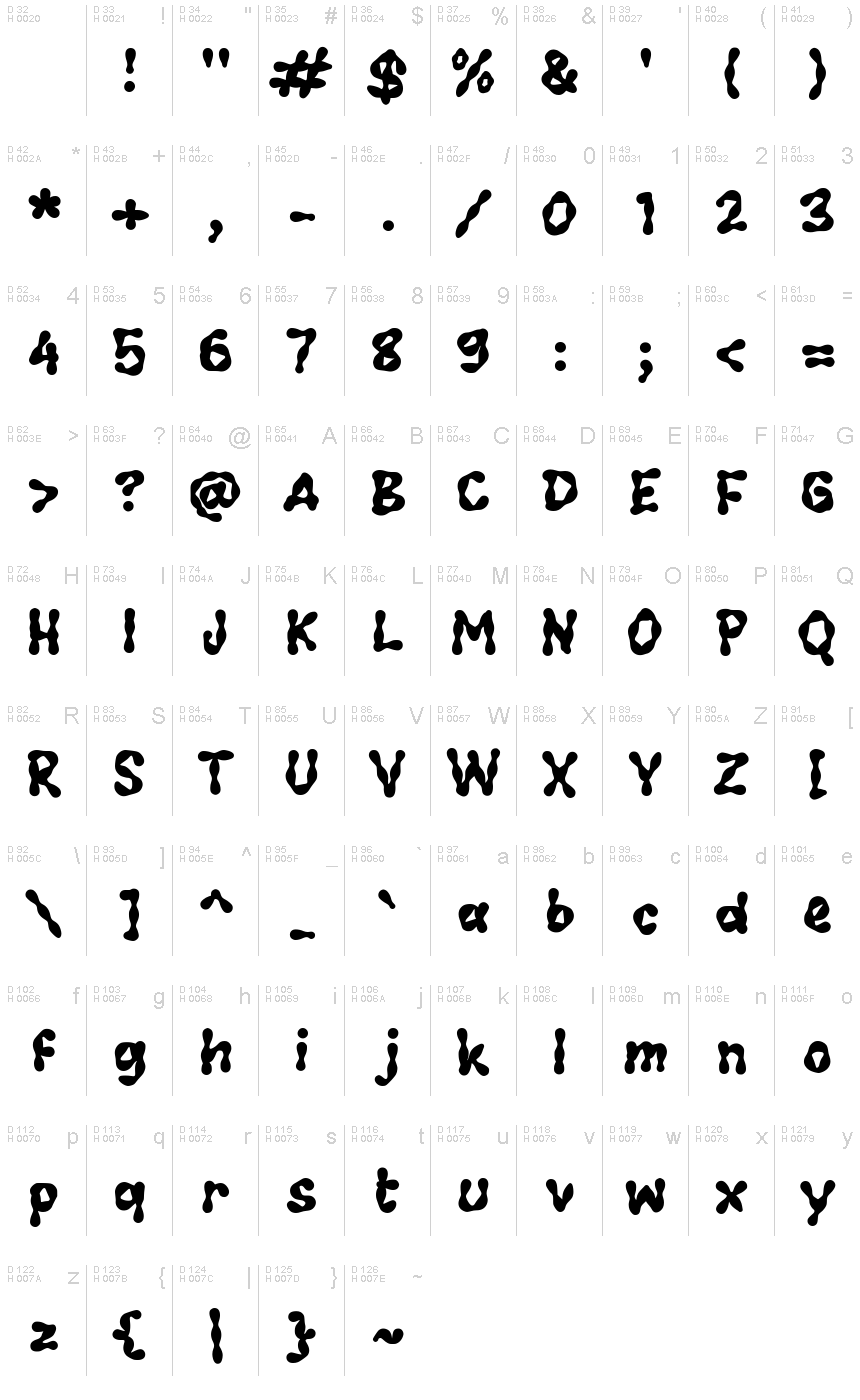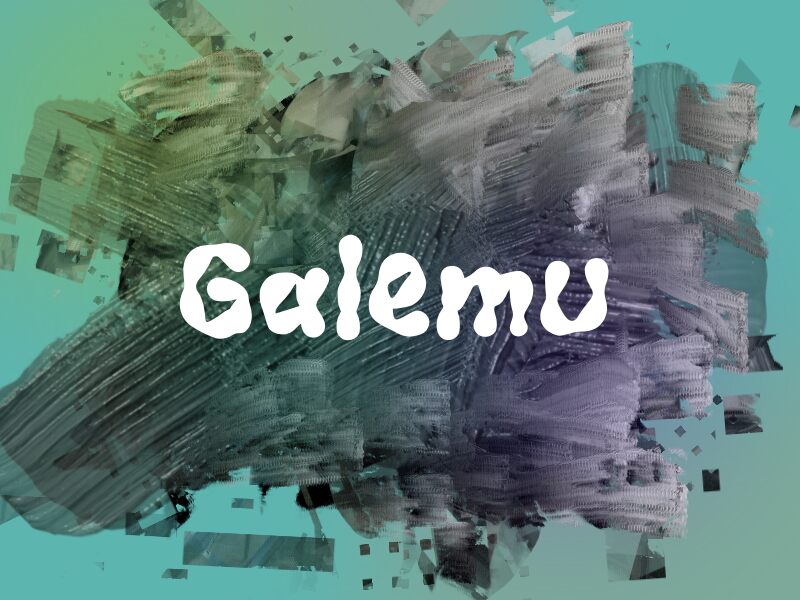
Galemu
Galemu font designed by wep is a bold groovy display font that blends retro visual elements with modern design to deliver amazing aesthetics. Galemu is bubbly, thick, and playful with exceptional emphasis on curves presented in high contrast compared to the font’s minimal spacing between its letters. This fun typeface is absolutely free for personal use.